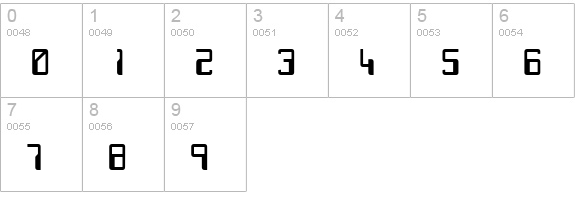
Cockpit Font Details
Cockpit font is a modern and sleek typeface that exudes sophistication and professionalism. With its clean lines and contemporary design, Cockpit is perfect for a wide range of projects, from branding to editorial design. This versatile font is available for free download at FontsMarket.com, making it easily accessible for designers and creatives looking to add a touch of elegance to their work. Whether you're designing a website, creating a logo, or working on a print project, Cockpit font is sure to make a statement with its bold and stylish appearance. Elevate your designs with Cockpit and bring a touch of modern sophistication to your next project.